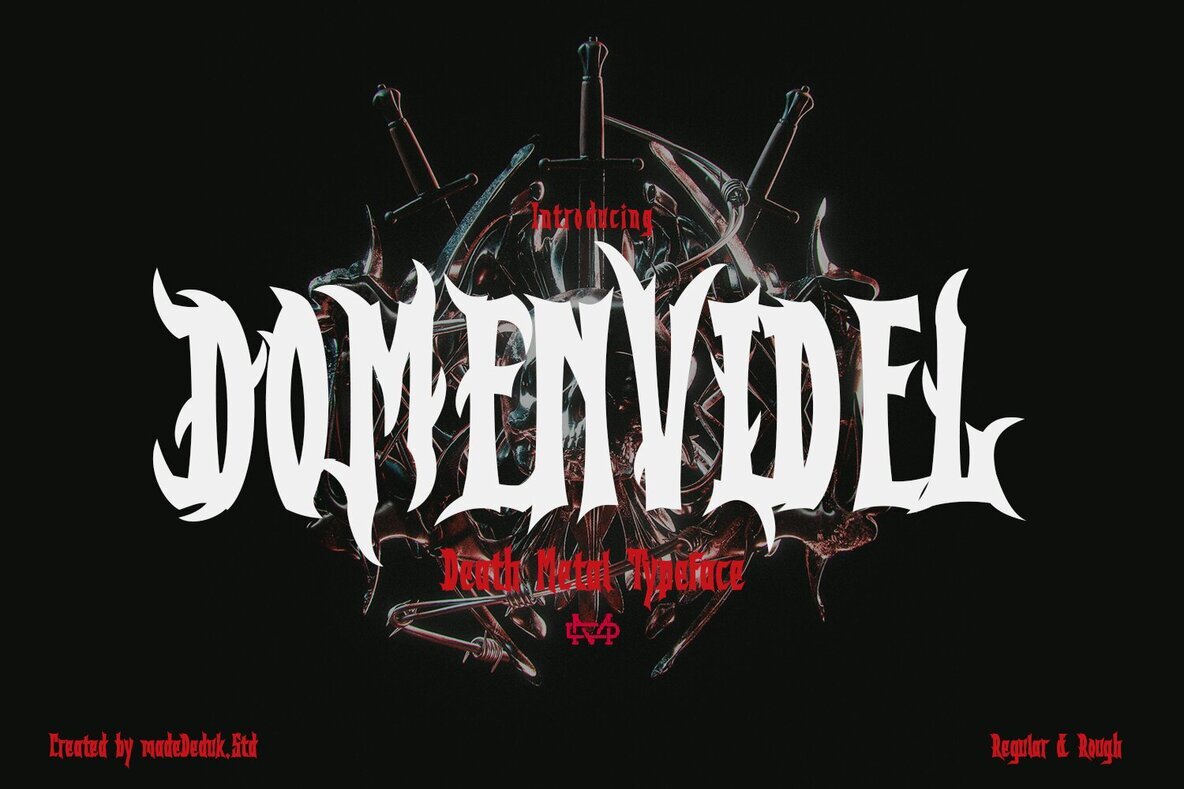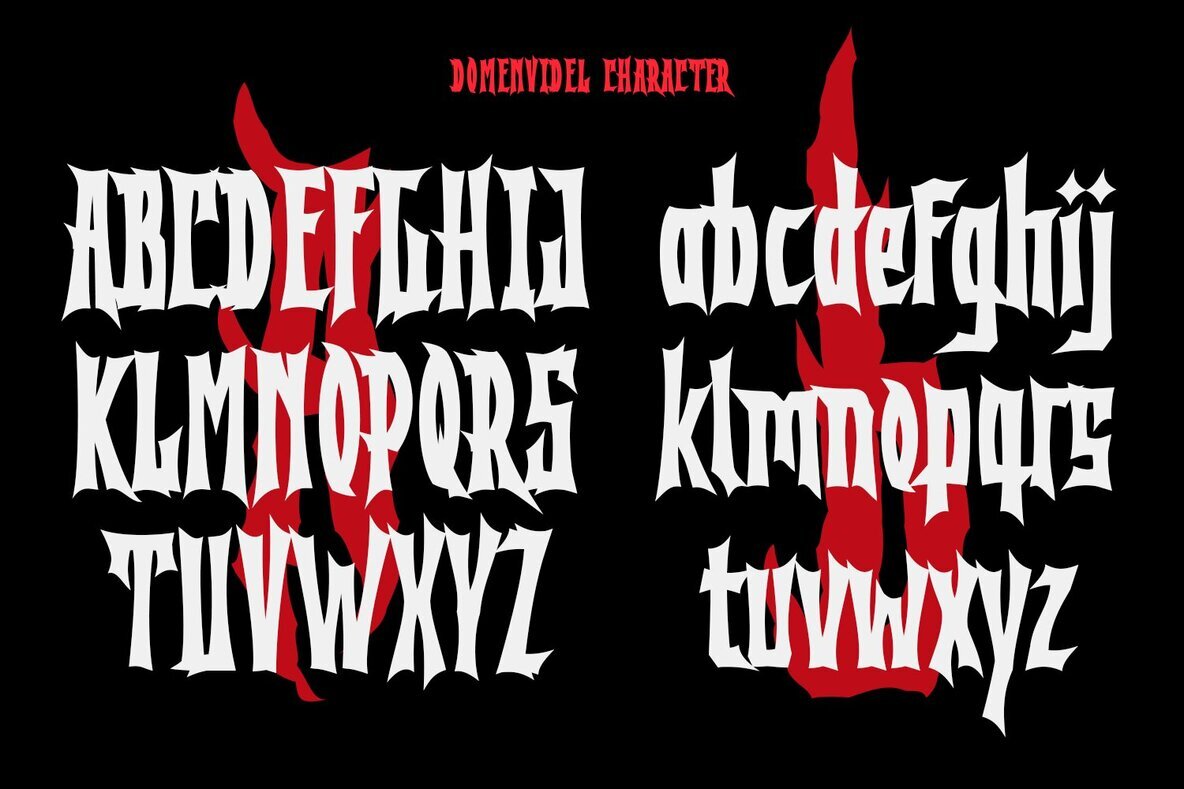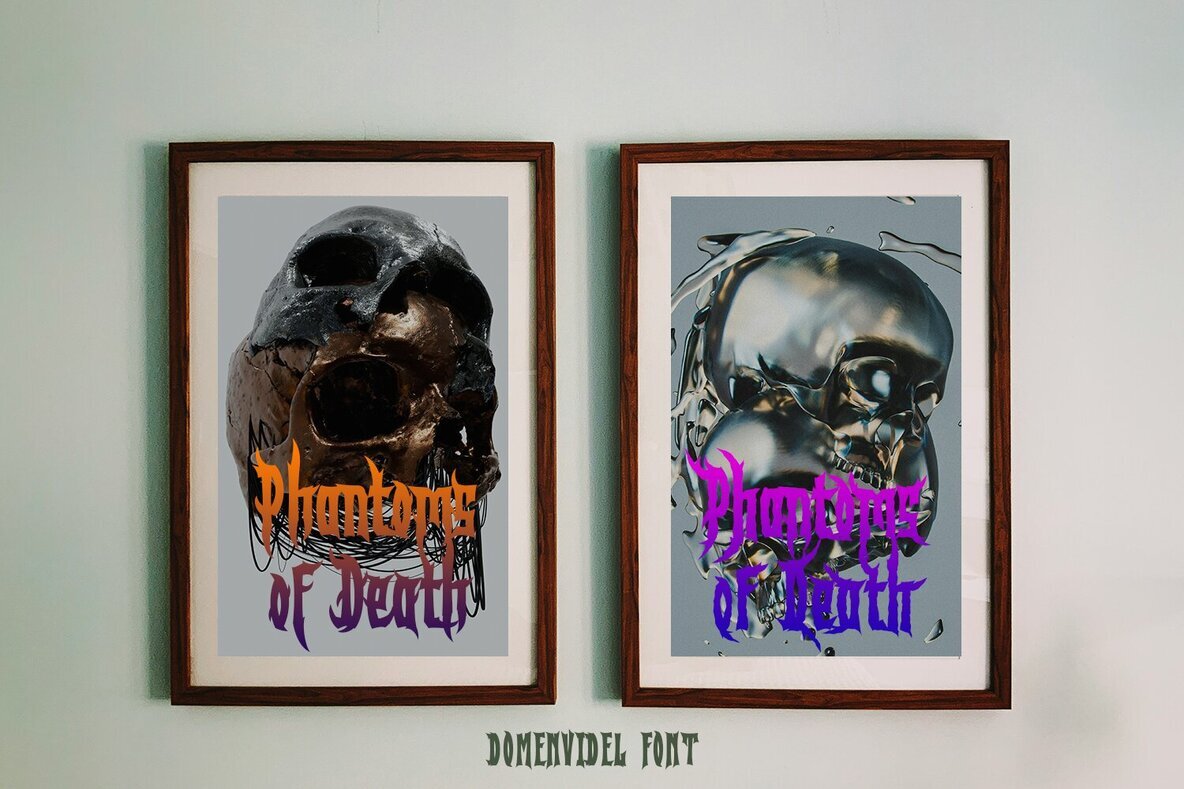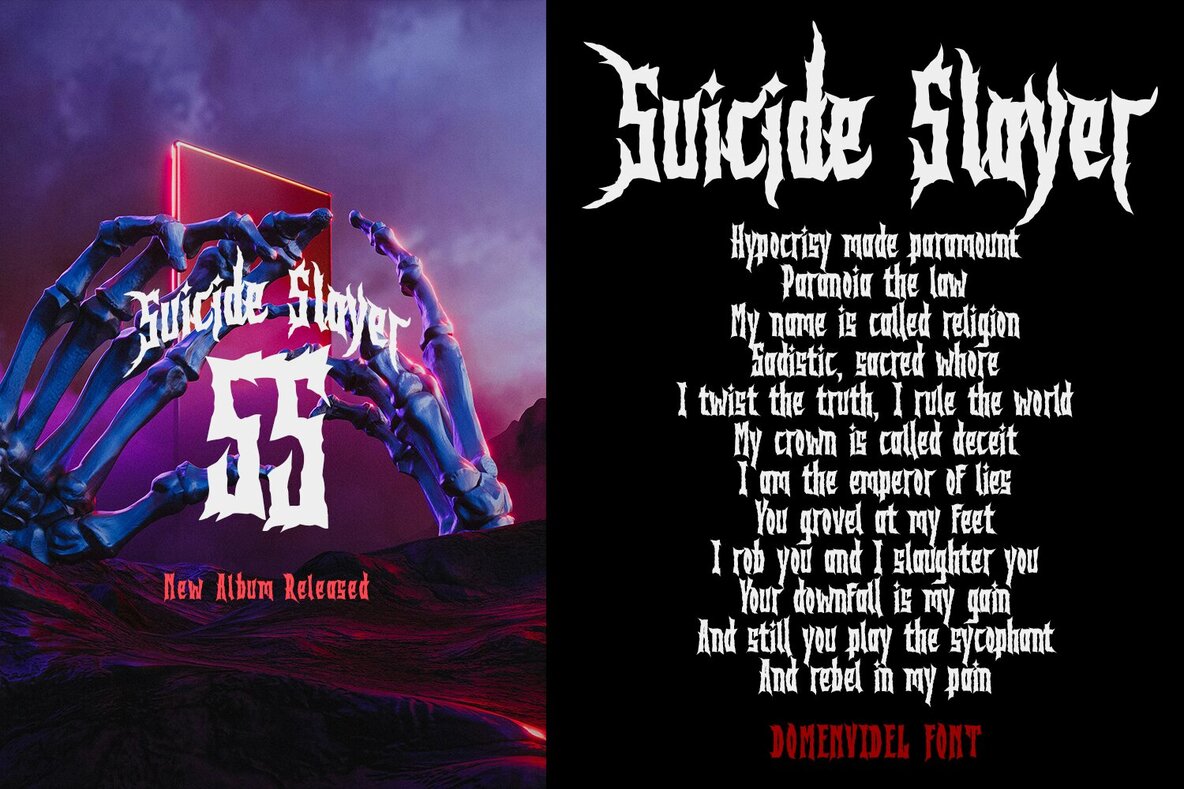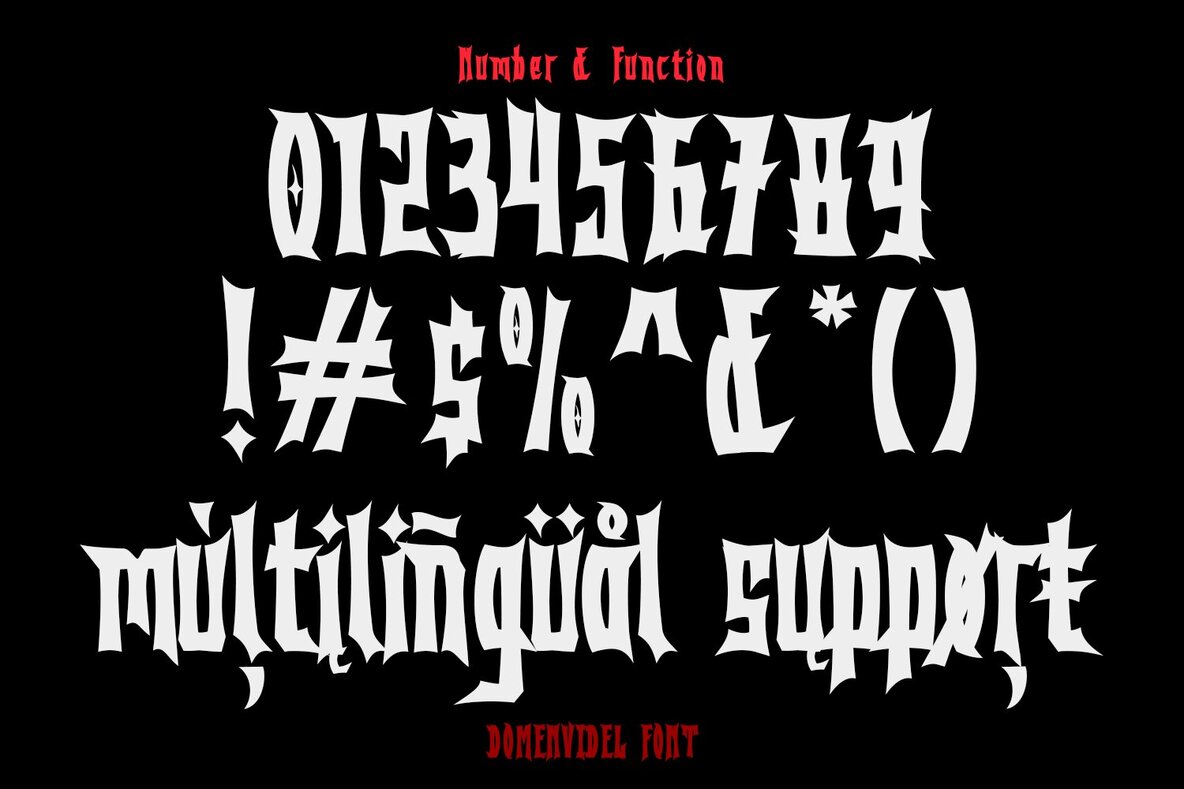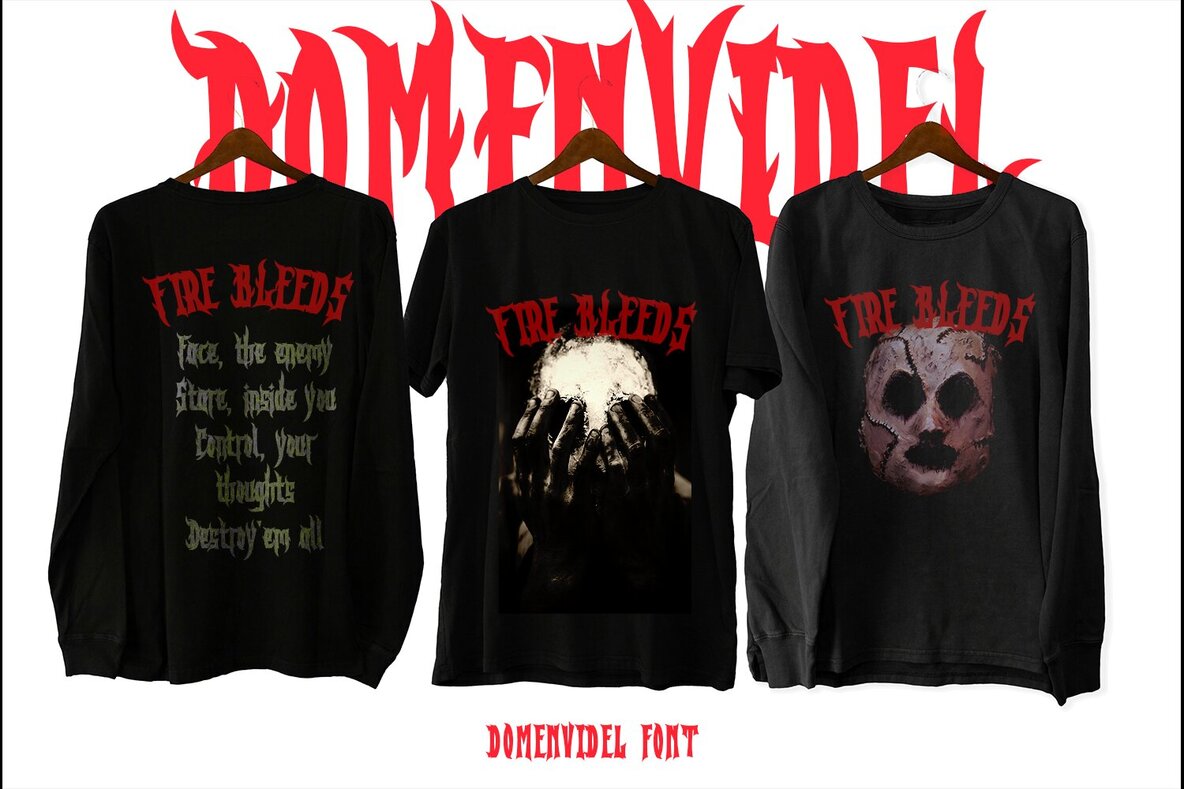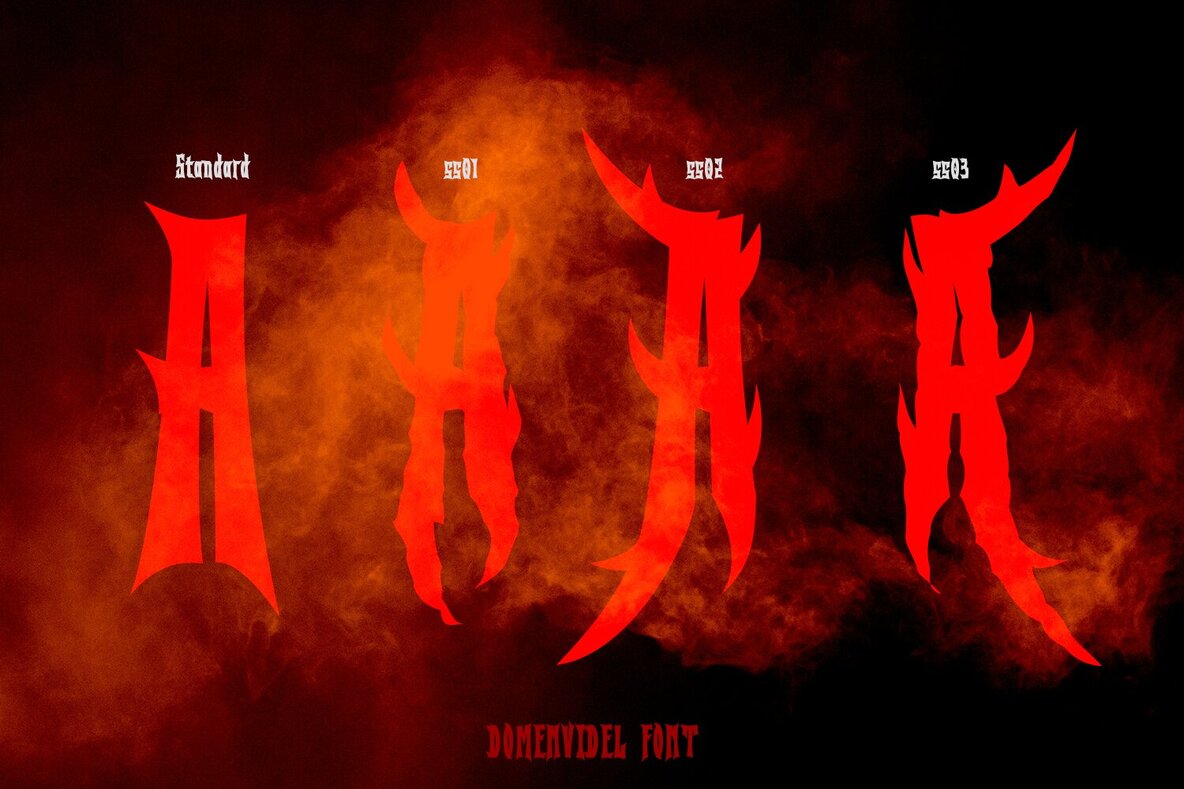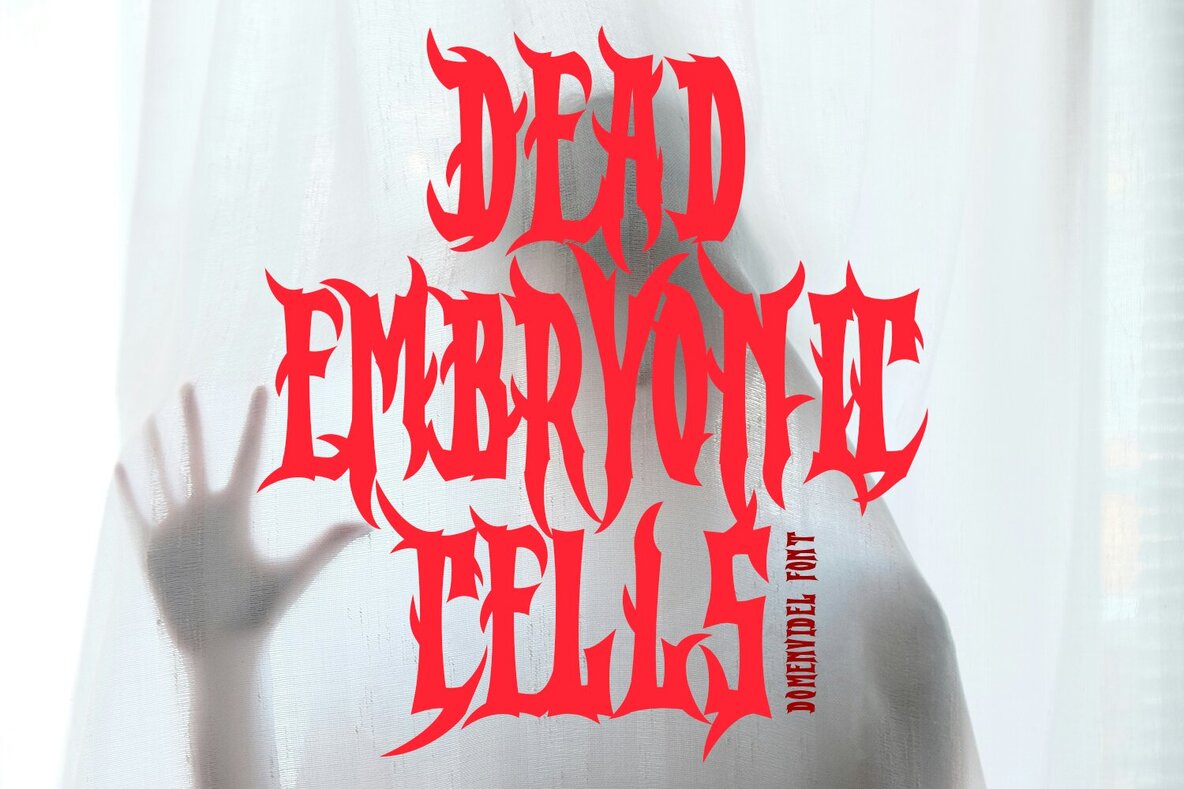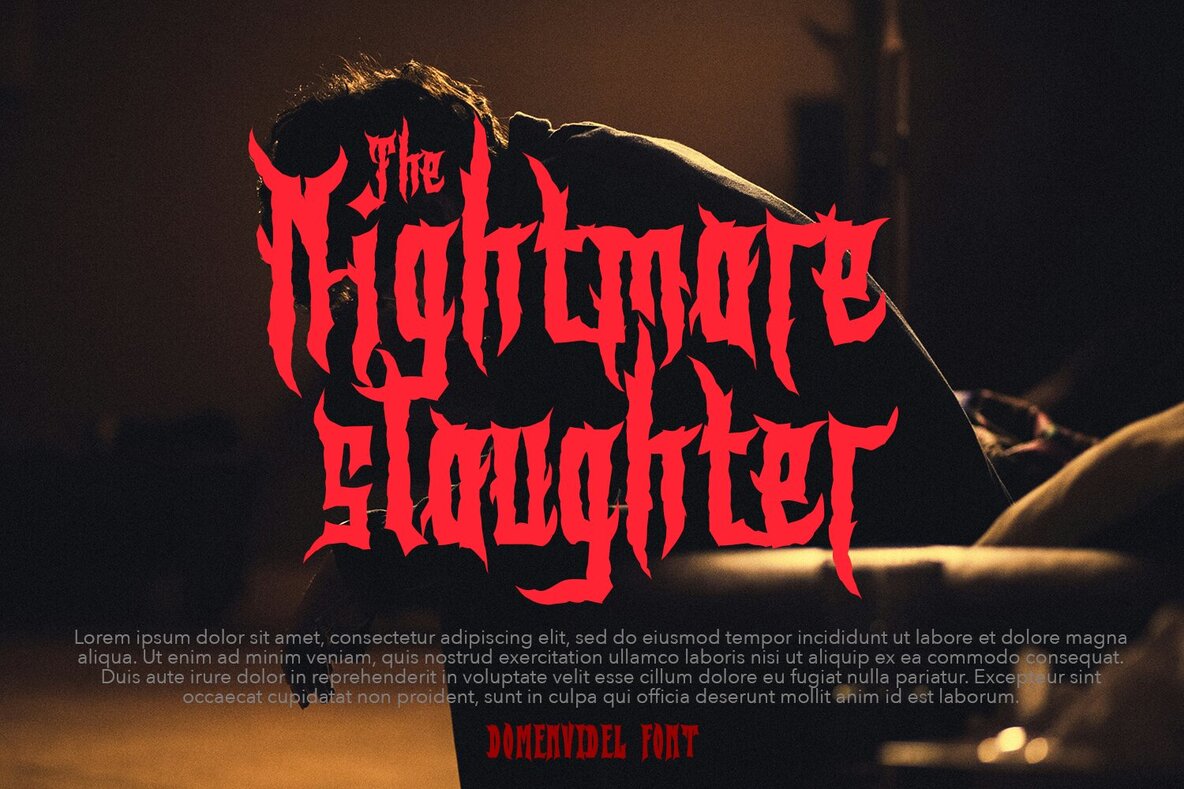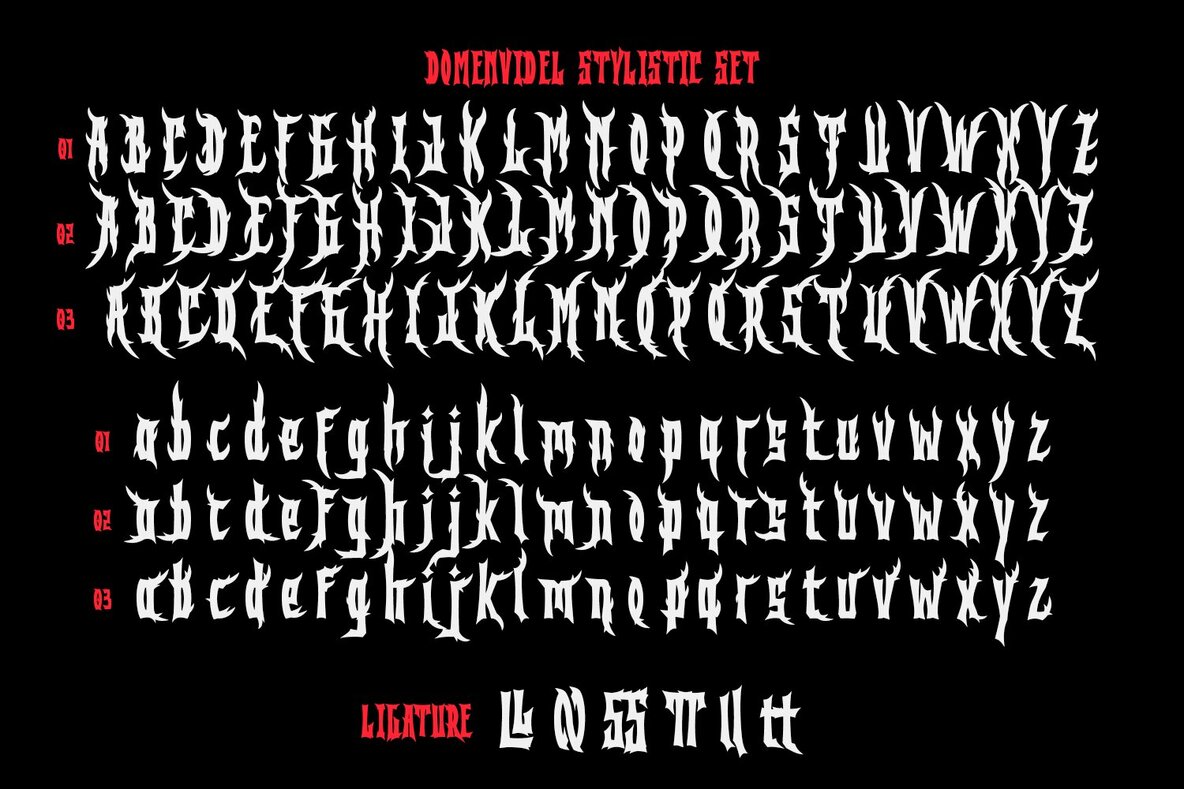
Domenvidel Font
Discover Domenvidel, a striking typeface that embodies the essence of boldness and heaviness, perfect for designs with a death metal flair. This font is available in both regular and rough versions, offering a unique visual contrast that enhances your creative projects. The design is infused with haunting thorn details that naturally merge the characters, crafting an eye-catching and robust typographic experience.Domenvidel: Bold with a Dark Edge